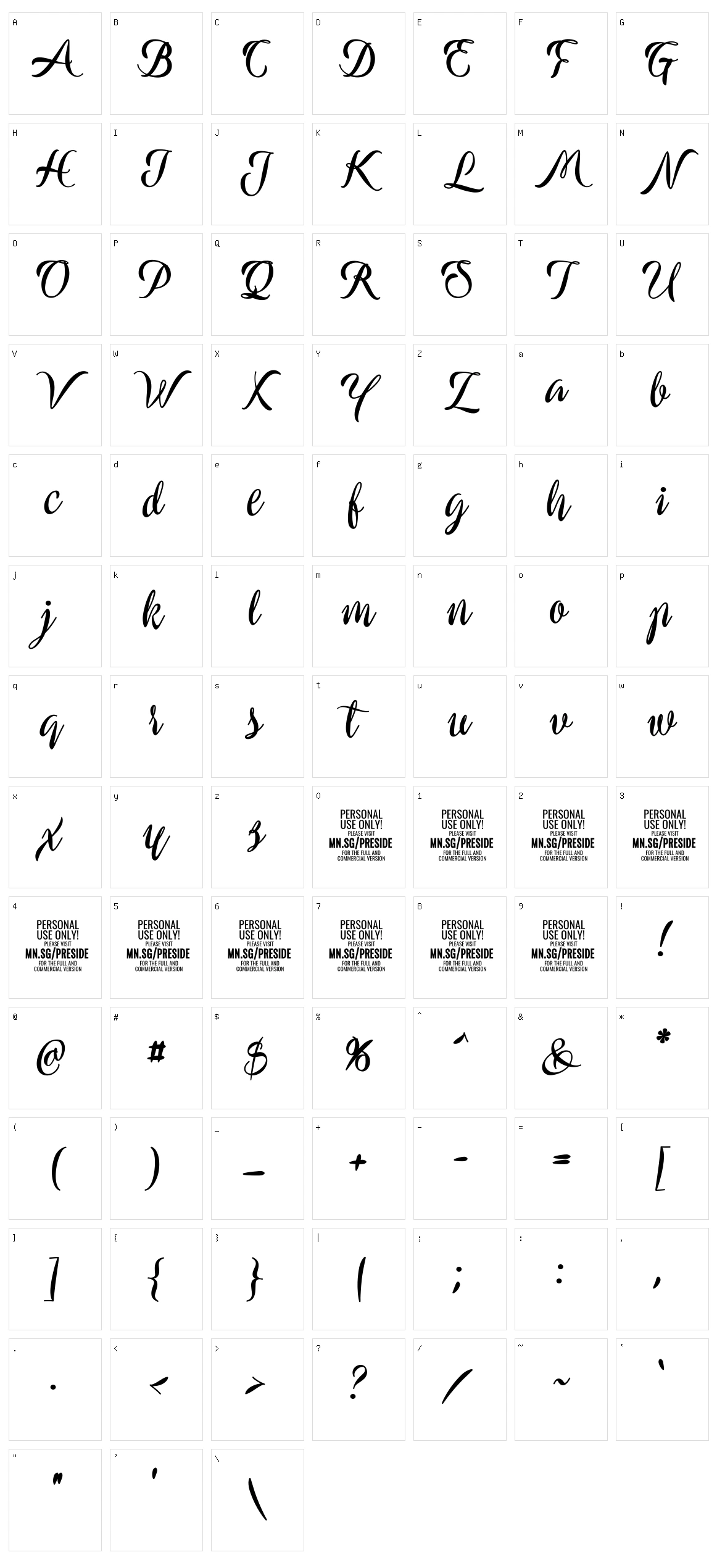
Preside is a fresh, handpainted script typeface.
Its round curves and soft shapes will add warmth to your project.
Created by Måns Grebäck, this font contains OpenType functions such as contexutal
alternates, ligatures and stylistic alternates, and comes in two styles: Light and Bold.
With a large collection of special letters and characters, Preside supports hundreds of languages.